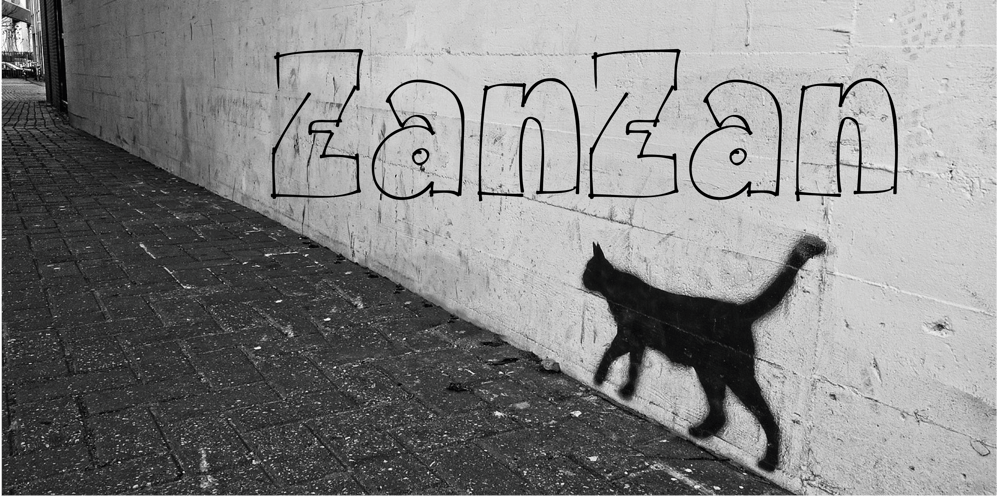
Zan Zan Font Family was designed by Pietro Rotelli and published by Pitt’s Hand. Zan Zan contains 1 styles and family package options. A fun font to create pop and young graphics, with a non-obvious font created starting from a handcrafted line. For an urban, snappy and fresh result.